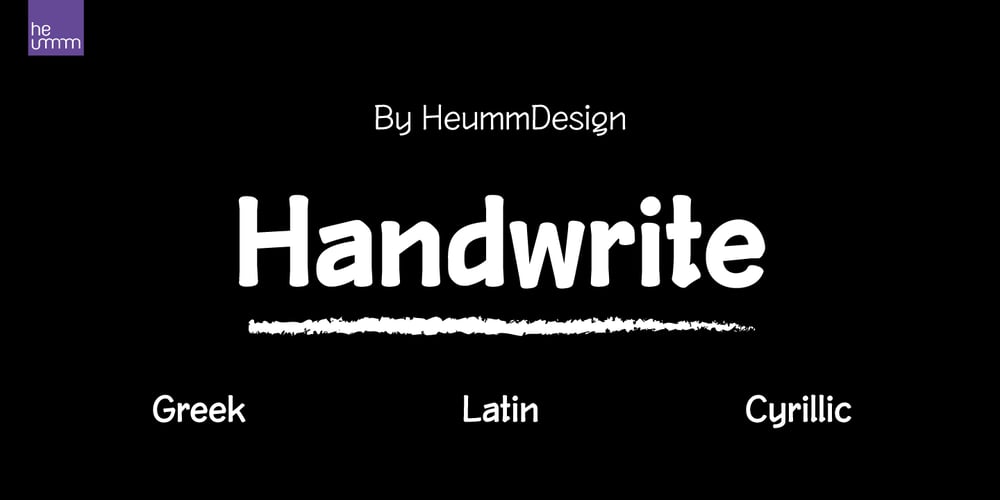
HU Handwrite Font Family was designed by Yehyeong Lee and published by Heummdesign. HU Handwrite contains 3 styles and family package options. It is a handwriting-style font for body text that emphasizes gentleness and solidity by using less curvature and making use of a straight feel. The handwriting feeling is emphasized through the style that makes use of the natural bending and stroke order. Softness was added in the shape of a gentle curve, and perspective was applied by setting a vanishing point in the lower left corner.